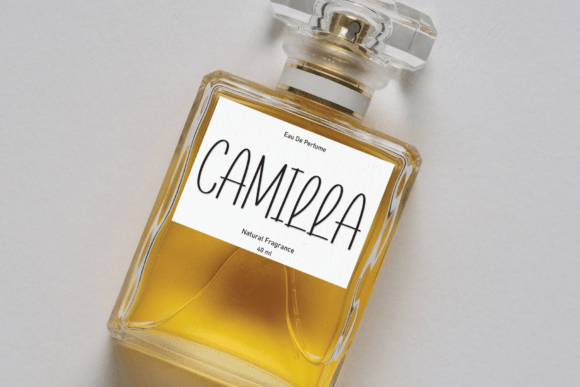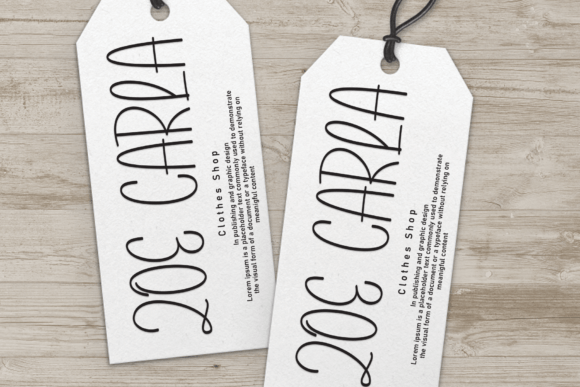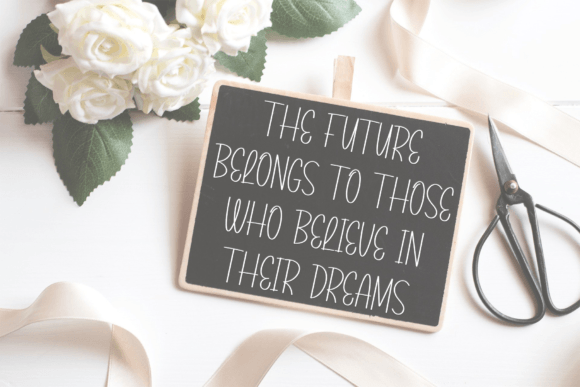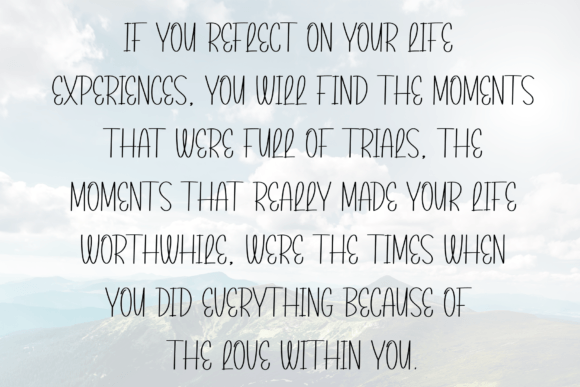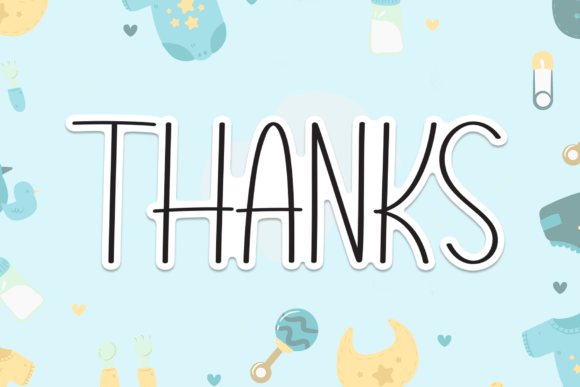
Baby Things Font: The Sweet and Friendly Handwritten Font for Your Creative Projects
Are you a designer or crafter looking for a font that can add a touch of sweetness and friendliness to your creative projects? Look no further than the Baby Things Font! This adorable handwritten font is perfect for writing wedding invitations, cards, or any other design that might need a fun and playful touch.
What is Baby Things Font?
Baby Things Font is a sweet and friendly handwritten font that is designed to bring a smile to your face. Its cute and fun design makes it ideal for a wide range of creative projects, from wedding invitations and cards to posters, flyers, and more. Whether you’re a professional designer or a DIY crafter, this font is sure to become a favorite in your collection.
Key Features of Baby Things Font
- Cute and Fun Design: Baby Things Font features a playful and whimsical design that is sure to add a touch of sweetness to your creative projects.
- Handwritten Style: This font features a handwritten style that gives it a personal and friendly feel.
- Versatile: Baby Things Font can be used for a wide range of creative projects, from wedding invitations and cards to posters, flyers, and more.
- Easy to Read: Despite its playful design, Baby Things Font is easy to read and understand, making it perfect for use in body text.
Uses for Baby Things Font
Baby Things Font is a versatile font that can be used for a wide range of creative projects. Here are some ideas to get you started:
- Wedding Invitations: Add a touch of sweetness and romance to your wedding invitations with Baby Things Font.
- Cards: Use Baby Things Font to create adorable cards for birthdays, holidays, and other special occasions.
- Posters and Flyers: Add a playful touch to your posters and flyers with Baby Things Font.
- Social Media Graphics: Use Baby Things Font to create eye-catching social media graphics that are sure to grab attention.
- DIY Crafts: Baby Things Font is perfect for use in DIY crafts, such as scrapbooking, journaling, and more.
Tips for Using Baby Things Font
Here are some tips for using Baby Things Font in your creative projects:
- Pair with Other Fonts: Baby Things Font pairs well with other fonts, such as sans-serif fonts and script fonts.
- Use in Combination with Images: Baby Things Font looks great when used in combination with images, such as illustrations and photographs.
- Experiment with Colors: Try using Baby Things Font in different colors to add a pop of color to your creative projects.
Baby Things Font is a sweet and friendly handwritten font that is perfect for adding a touch of sweetness and friendliness to your creative projects. Its cute and fun design makes it ideal for a wide range of creative projects, from wedding invitations and cards to posters, flyers, and more. Whether you’re a professional designer or a DIY crafter, Baby Things Font is sure to become a favorite in your collection.